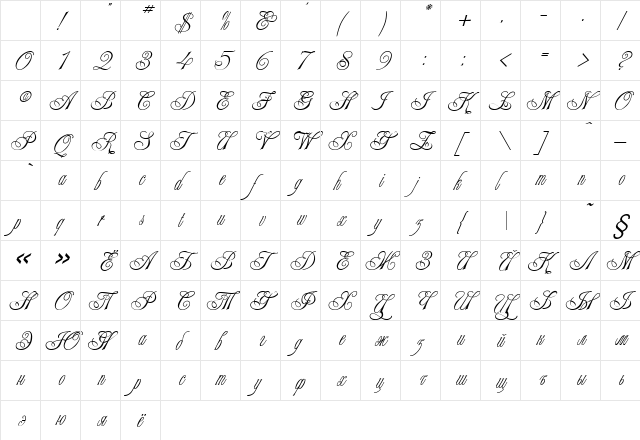
Complete Champagne Cyrillic Regular glyph index. Displaying only characters natively supported by Champagne Cyrillic Regular font.
Champagne Cyrillic is a composed and adaptable typeface that performs quietly and consistently across a wide range of design contexts.